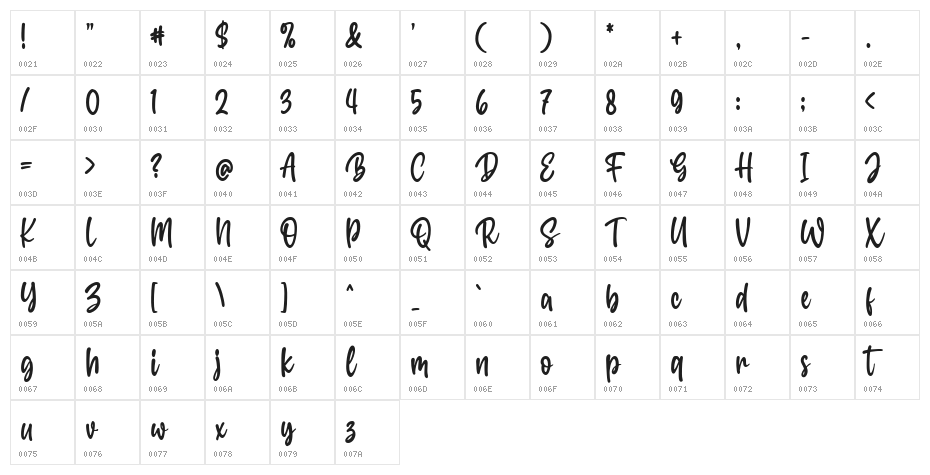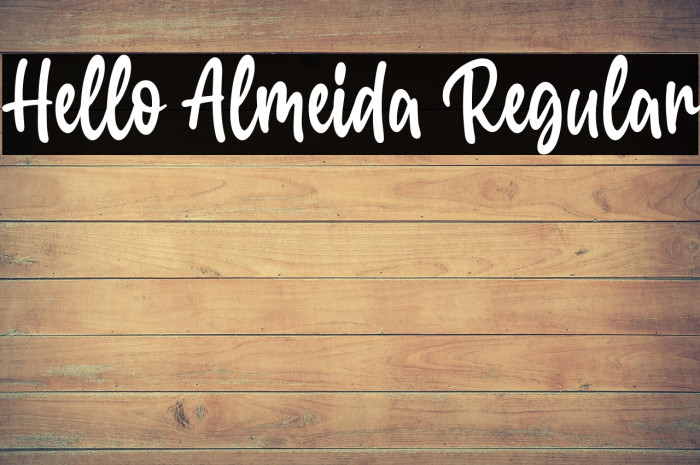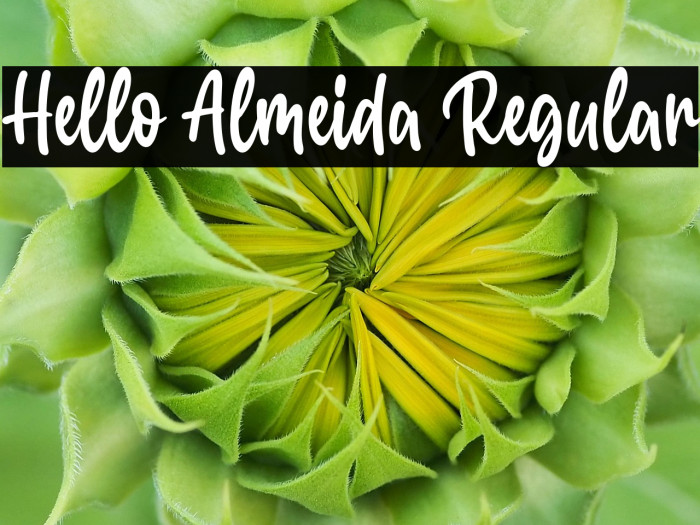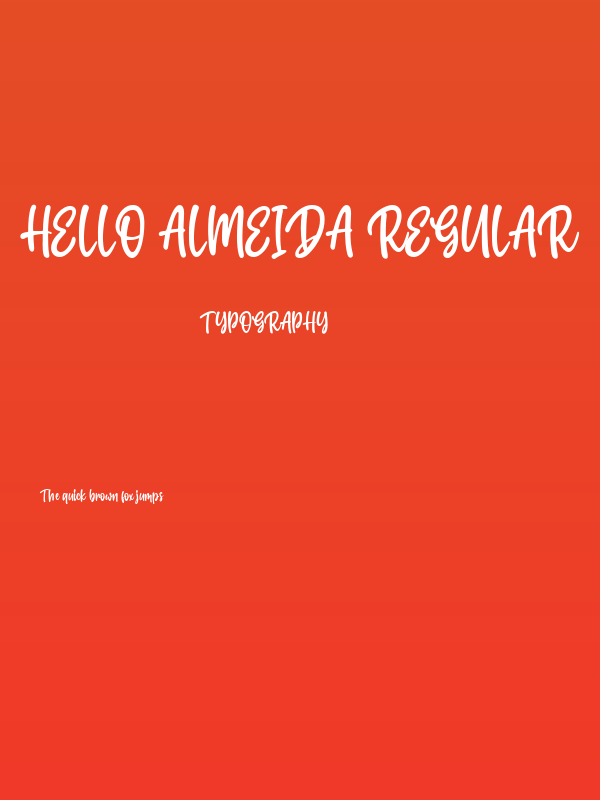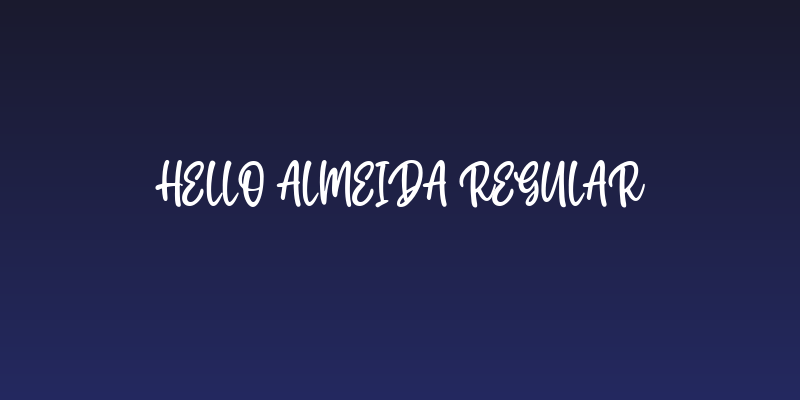
Hello Almeida Regular Font
Hello Almeida Regular Description
This font features a playful and energetic handwritten style, characterized by its bold and flowing strokes. The letters are crafted with a casual flair, giving off a friendly and approachable vibe. The uppercase and lowercase letters maintain a consistent style, with rounded edges and smooth curves that enhance its readability. The numbers and special characters are designed to match the overall aesthetic, ensuring a cohesive look across all text. This font is perfect for projects that require a personal touch, such as invitations, greeting cards, or social media graphics.
| Use Case | Logos, Headlines, Invitations |
| Proposed Projects | Ideal for invitations, greeting cards, social media graphics, and personal branding. |